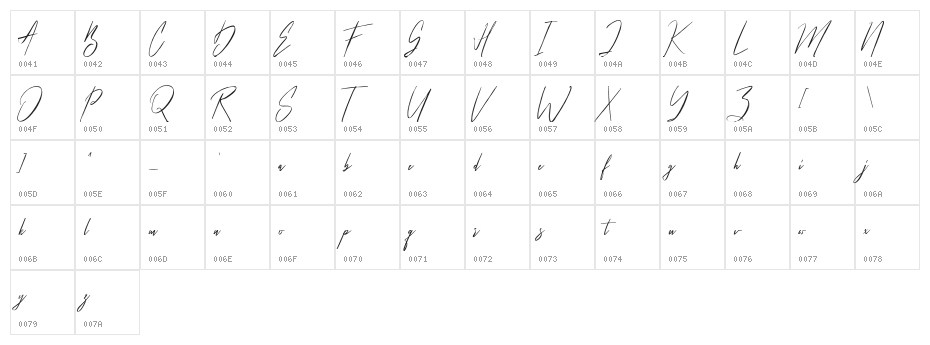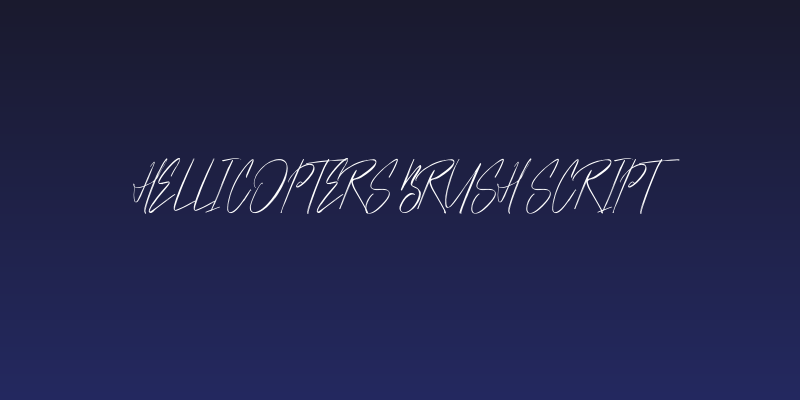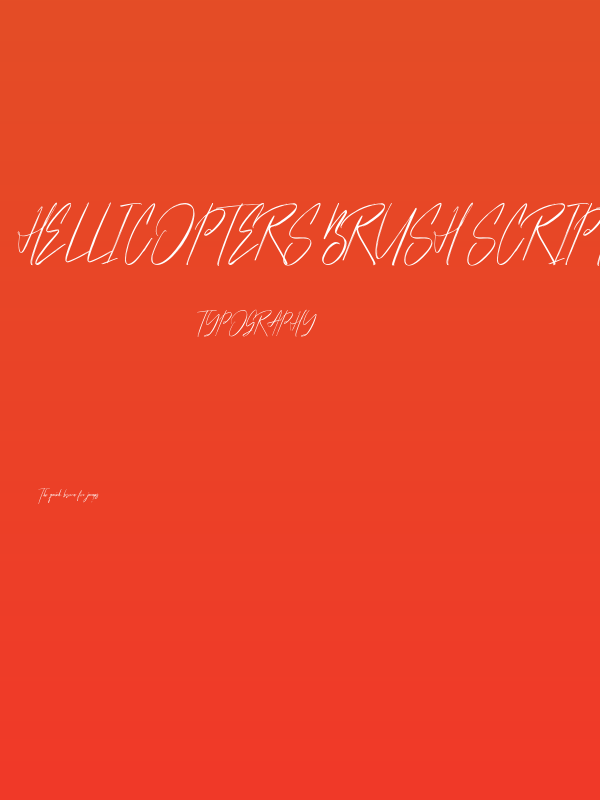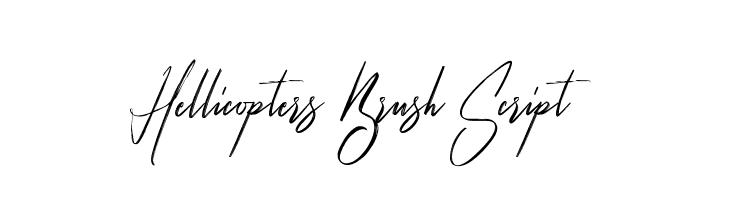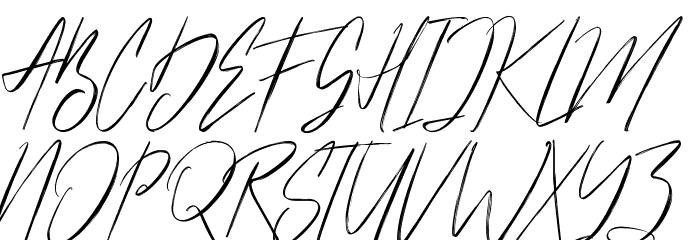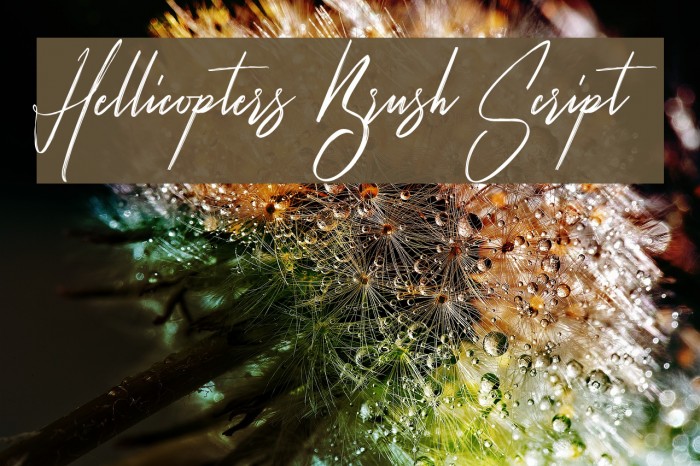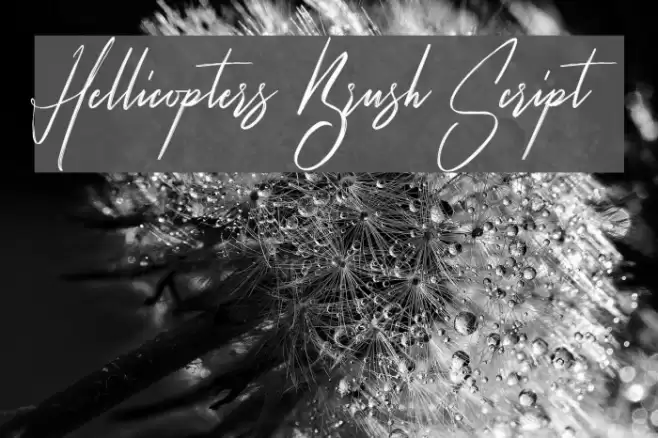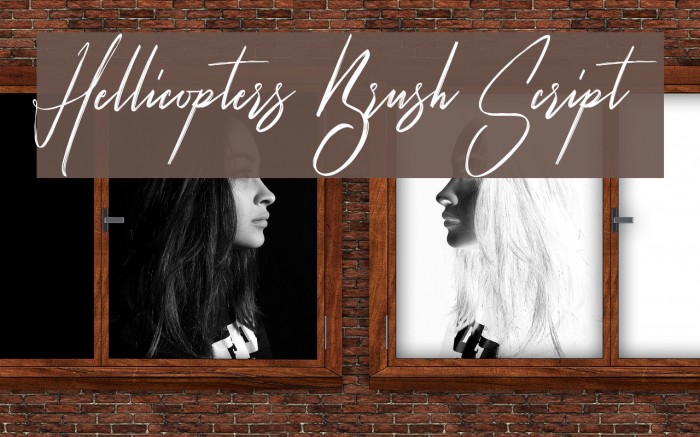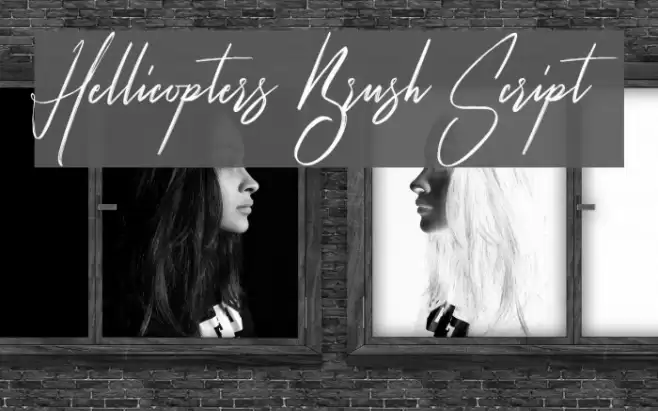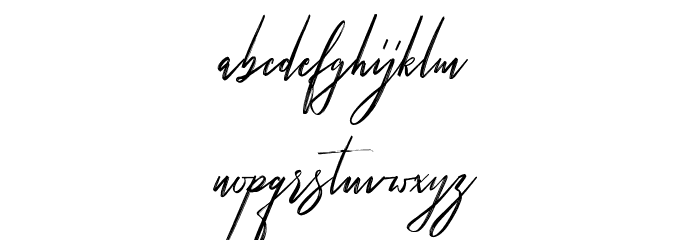
Hellicopters Brush Script Font
Hellicopters Brush Script Description
This font exudes a dynamic and expressive style, characterized by its fluid, brush-like strokes that convey a sense of movement and energy. The uppercase letters are bold and elongated, with a slight slant that adds to the overall sense of motion. The lowercase letters maintain a consistent flow, with elegant curves and loops that enhance the script's artistic flair. The font's design is reminiscent of handwritten calligraphy, offering a personal and creative touch. Its unique style makes it suitable for projects that require a bold, artistic statement.
| Use Case | Logos, Headlines, Artistic projects |
| Proposed Projects | Ideal for creative projects such as logo design, invitations, greeting cards, and artistic posters. |